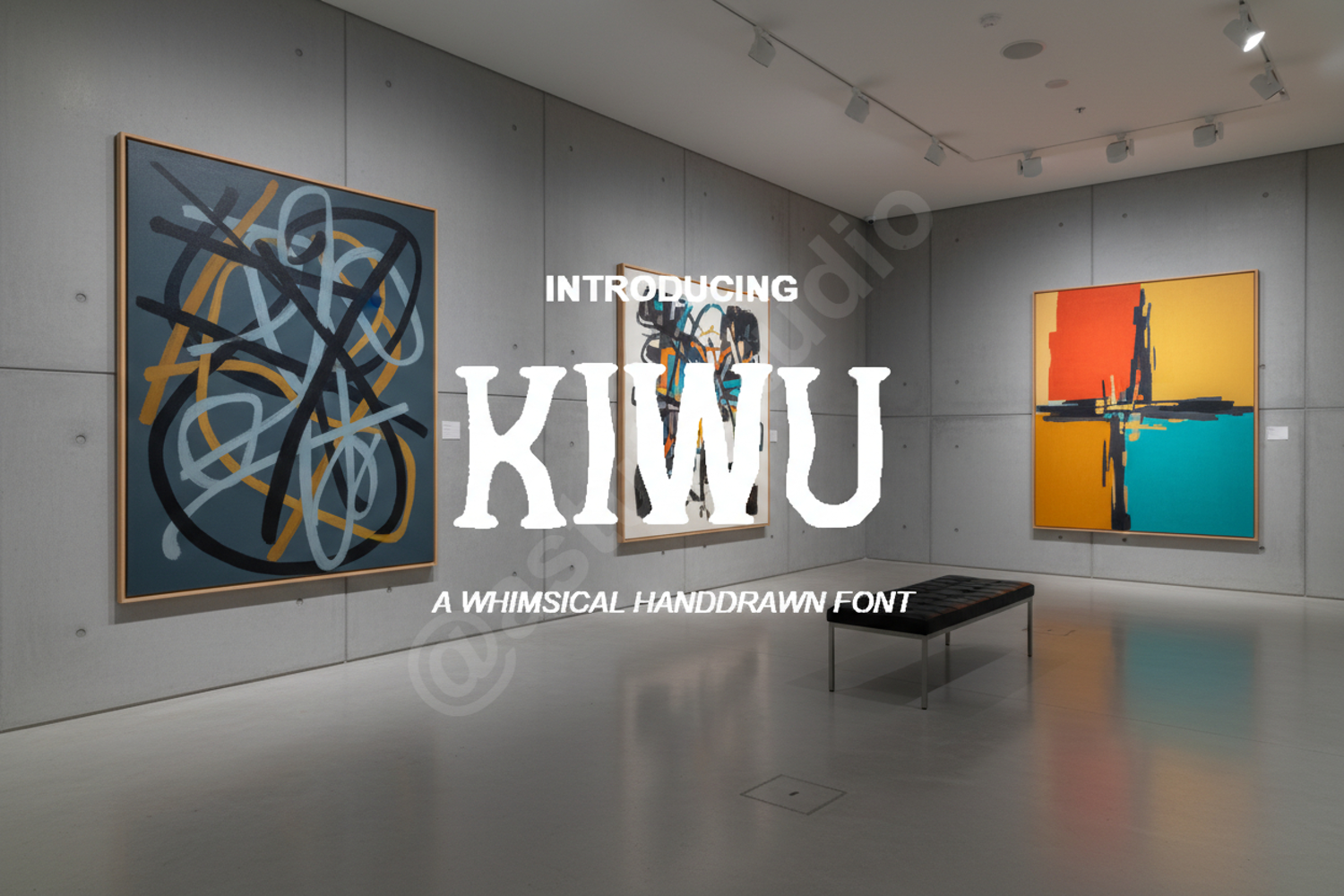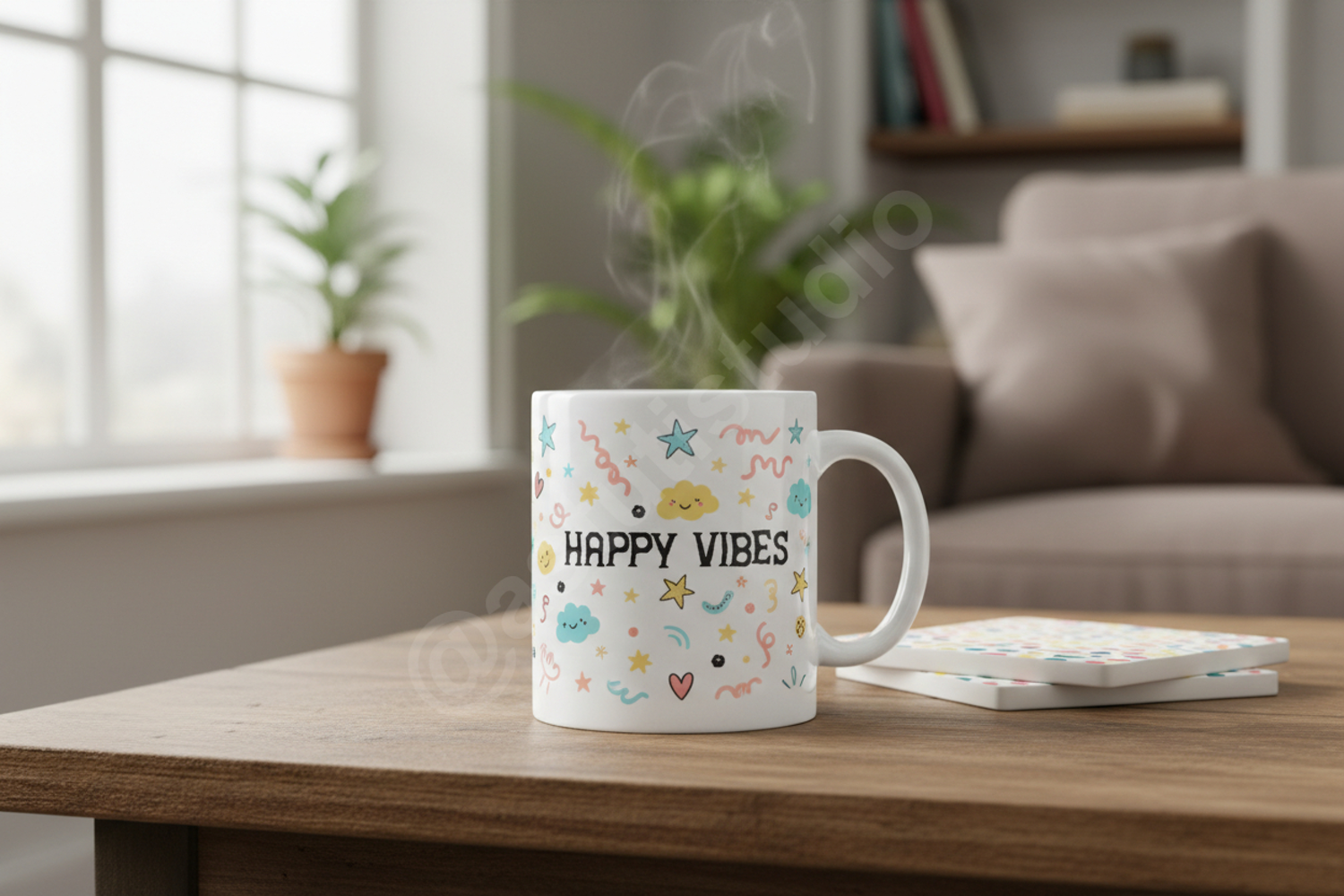
Kiwu - Modern & Minimalist Display Typeface
Kiwu
Kiwu is a premium display font that blends modern minimalism with a unique, playful character. Meticulously crafted to ensure high-quality aesthetics, Kiwu offers a clean yet distinct look that commands attention without overwhelming your design. Whether you are working on a high-end corporate identity or a creative passion project, this font provides the versatility needed to make your work stand out.
- Branding and Visual Identity: Create memorable logos and brand marks.
- Packaging Design: Perfect for modern product labels and boxes.
- Social Media Graphics: Enhance your Instagram posts and digital marketing.
- Editorial Layouts: Use for catchy headlines and bold titles.
- Wedding Stationery: Add a contemporary touch to invitations and cards.